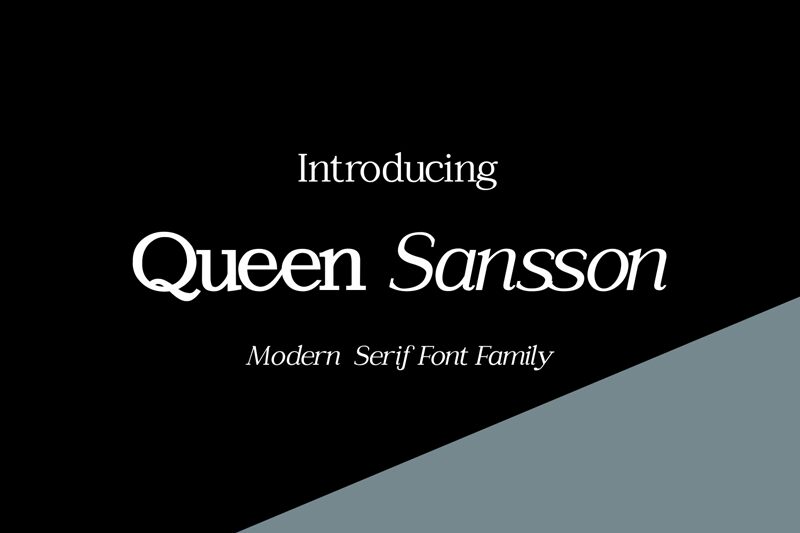
Queen Sansson font, crafted by Zamjump, is a captivating serif that exudes elegance and sophistication. With its refined curves and subtle yet striking weight variations, this free font stands out in both formal and creative designs. Its classic feel makes Queen Sansson perfect for branding, editorial layouts, or any project seeking a touch of timeless class. The expanded letters add grandeur to headers while maintaining readability in body text.
Ideal for designers who desire a harmonious blend of tradition and modernity, Queen Sansson's versatility shines in invitations, logos, or website accents. Don't miss the opportunity to download this exquisite typeface to elevate your design projects with an air of regality and charm.